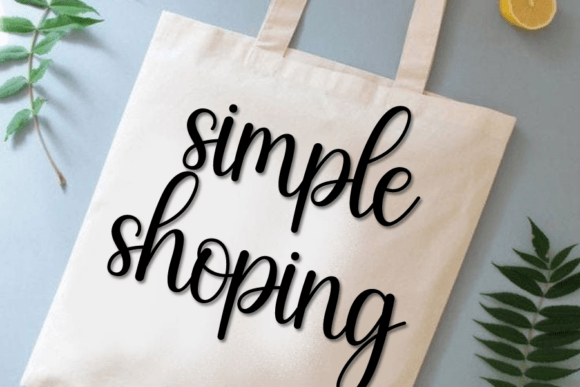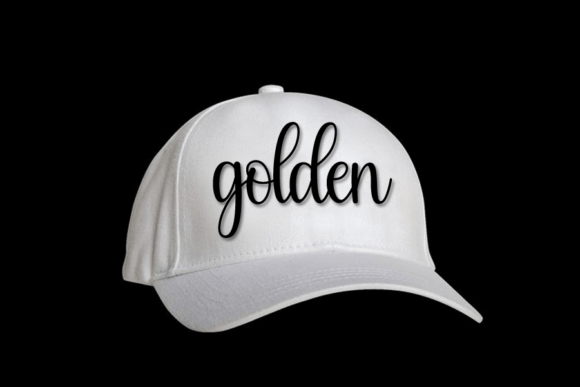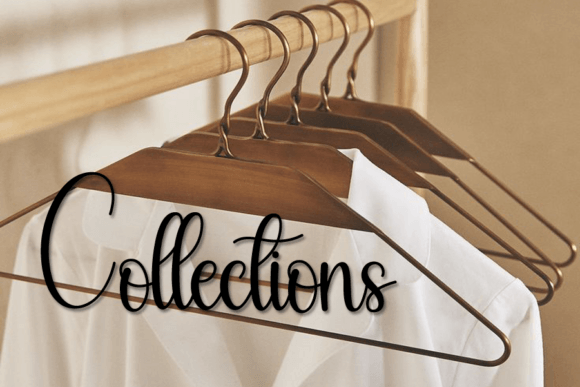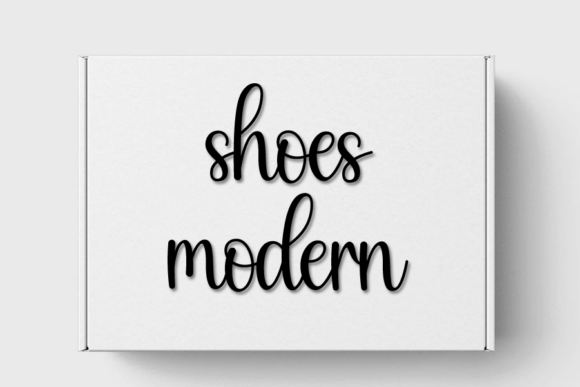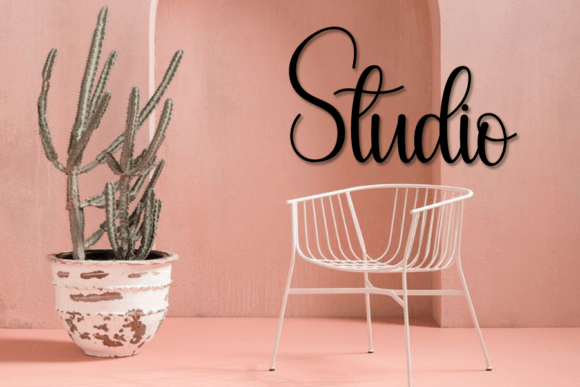
The Art of Handwritten Typography
As a designer, there’s nothing quite like the thrill of discovering a new font that perfectly captures the essence of your creative vision. You’ve spent hours poring over design boards, trying to find that one font that makes your concept come alive. And then, like a breath of fresh air, you stumble upon the perfect match. For many designers, that perfect match is the Biblesy Daendels Font.
This classic handwritten script is a masterclass in simplicity and elegance, with its random and free-style strokes evoking a sense of spontaneity and creativity. Whether you’re working on a logotype, headline, or corporate identity, the Biblesy Daendels Font is the perfect choice to add a touch of personality to your design. Its versatility makes it a valuable asset for designers looking to add a human touch to their projects.
Biblesy Daendels Font Key Features
- Font Family: Biblesy Daendels
- Unique Characteristics: The font features a unique blend of traditional and modern elements, with intricate details and ornaments inspired by 19th-century typography
Biblesy Daendels Font Review
Overall, I found the Biblesy Daendels font to be a unique and charming addition to any design project. Here are a few things that work well:
- ✨ Elegant script design: The Biblesy Daendels font features a beautiful, handwritten feel that’s perfect for titles, quotes, and other decorative text.
- ✨ High-quality rendering: The font is well-rendered, with smooth curves and clear letterforms that make it easy to read.
- ✨ Versatile: The Biblesy Daendels font can be used for a wide range of designs, from formal invitations to casual social media posts.
- ⚠️ Limited language support: The Biblesy Daendels font may not support all languages, which could be a problem for designers working on multilingual projects.
- ⚠️ Limited font sizes: While the font looks great at larger sizes, it can become a bit fuzzy at smaller sizes, which may not be ideal for body text.
Overall, I think the Biblesy Daendels font is a great choice for designers looking for a unique, elegant script font. Just be sure to consider the limitations and use it thoughtfully in your designs.
The Biblesy Daendels Font is ideal for:
1. Vintage-inspired designs
2. Artistic typography
3. Historical or literary-themed projects
Alternatives to Biblesy Daendels Font
Great Vibes Font is a modern, elegant script font perfect for creating eye-catching headlines and titles. It features a flowing, handwritten feel that works well for a variety of design projects, including wedding invitations, branding materials, and packaging design.
Compared to Biblesy Daendels Font, Great Vibes Font has a more refined and sophisticated look, making it suitable for high-end designs. It also has a wider range of ligatures and swashes, giving designers more flexibility in customizing their text.
Pacifico Font is a beautiful, cursive script font that exudes a sense of relaxation and calmness. It’s ideal for creating warm and inviting designs, such as restaurant menus, travel brochures, and spa branding materials.
Compared to Biblesy Daendels Font, Pacifico Font has a more laid-back and casual feel, making it suitable for designs that require a sense of approachability and friendliness. It also has a more consistent letter spacing, which can make text easier to read.